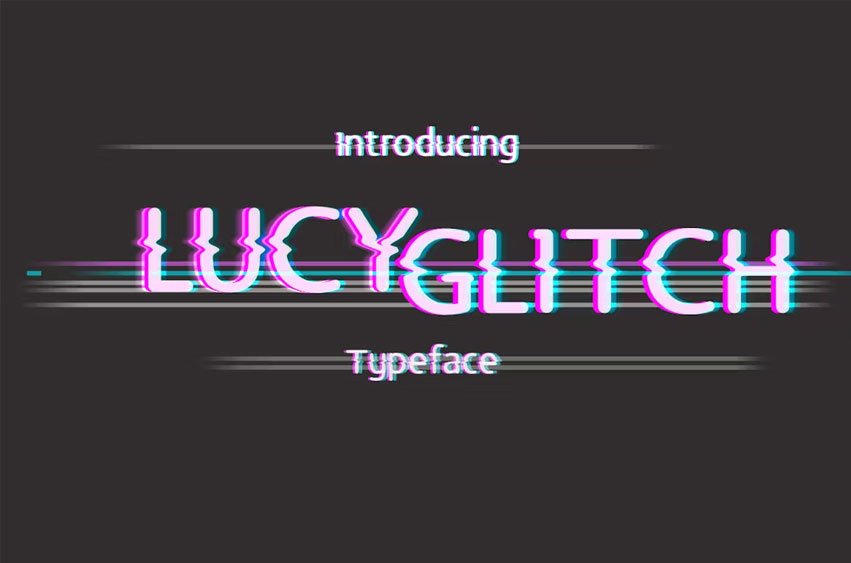
Lucy Glitch Font typeface inspired by a digital failure. A failure can be also a nice one to see. Including simple ligatures, number & punctuation, this typeface can be use for quotes and title.
- Uppercase and Lowercase
- Numeral and Punctuation